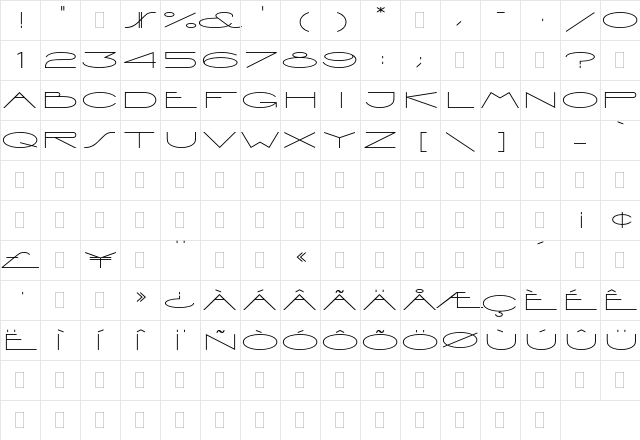
Vienna Extended Plain
Design Context for Vienna Extended Typeface
Vienna Extended is a composed and adaptable typeface that performs quietly and consistently across a wide range of design contexts.